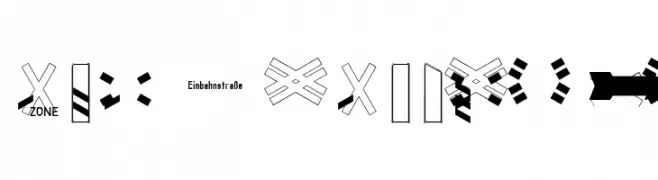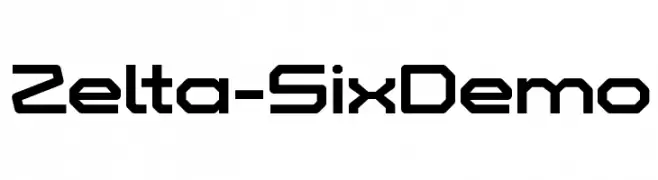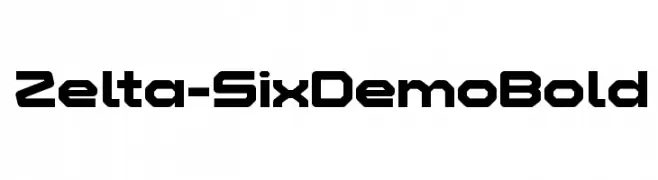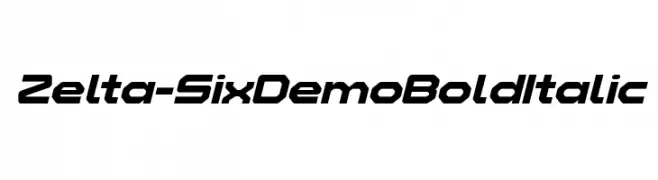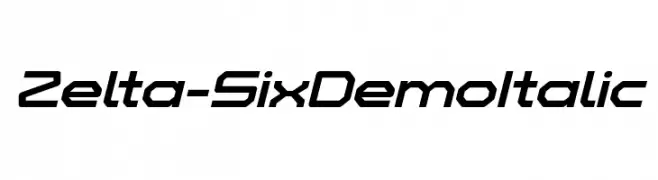
Bold, geometric pictograms for road and traffic signage.
A bold, geometric pictogram icon set for signage and wayfinding.
Bold, geometric pictogram icon set for signage and wayfinding.
A set of pictographic icons, not a standard font.
Bold, geometric pictograms and sans-serif numerals for signage.
Bold, geometric pictograms and numerals for signage.
A geometric, futuristic font with angular, block-like letterforms.
A bold, geometric font with a futuristic, digital aesthetic.
A bold, italicized font with a futuristic, angular design.
A modern, italicized font with a futuristic and dynamic design.